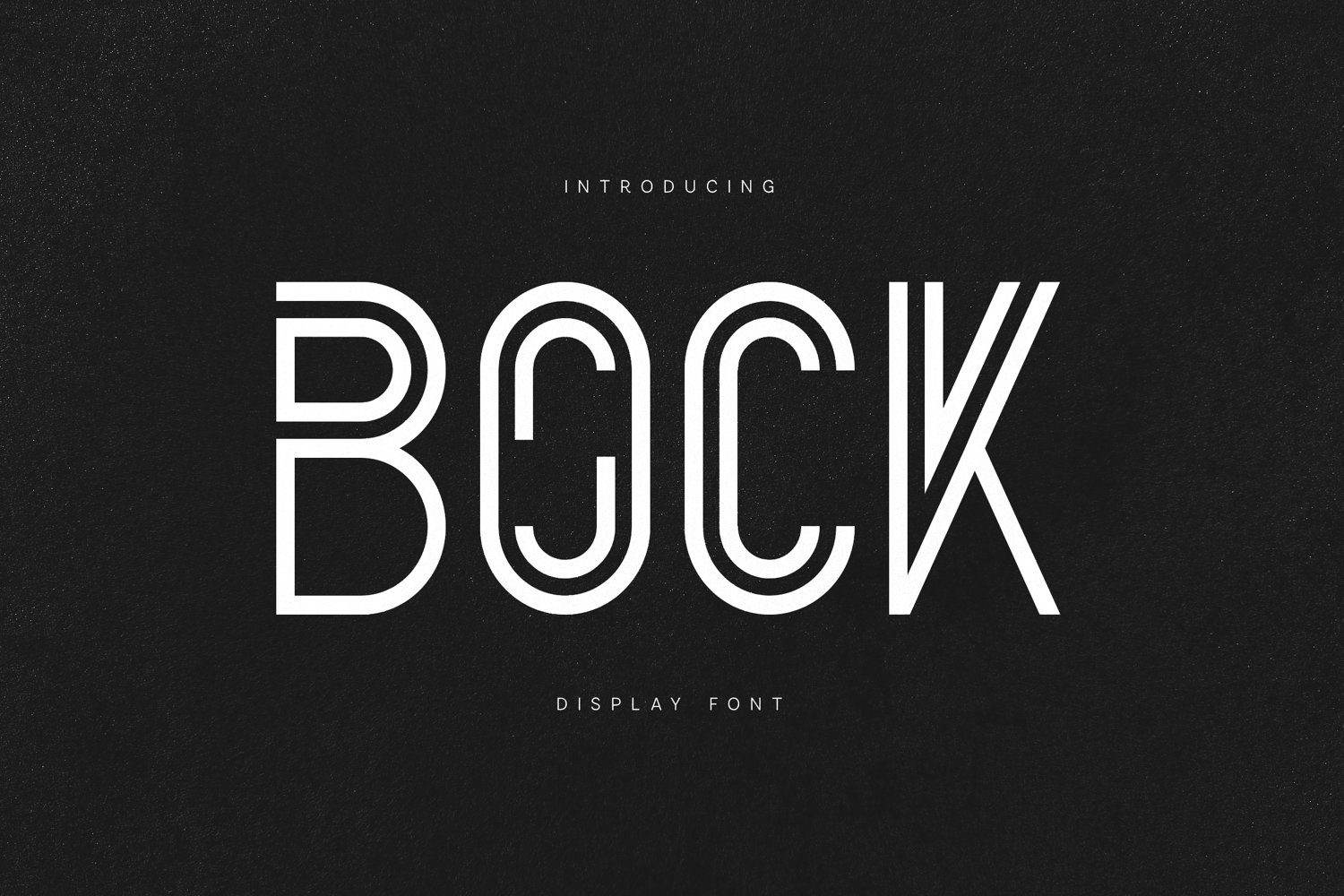
Bock Modern Outline Display Font
Bock is a bold modern outline display font designed for strong visual impact and contemporary branding. Built with clean geometric forms and consistent double-line strokes, Bock delivers a confident, futuristic aesthetic that works perfectly for posters, logos, headlines, packaging, album covers, and editorial design.
This font balances precision and personality, making it ideal for designers looking to create striking typography with a modern edge. Its outlined construction ensures high contrast on dark or textured backgrounds while remaining legible and distinctive.
• Display-focused outline design
Perfect for branding, posters, fashion, music visuals, digital design, and experimental typography.